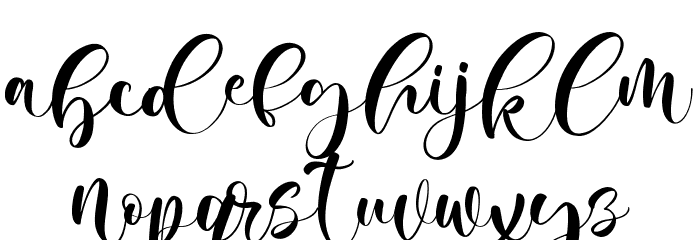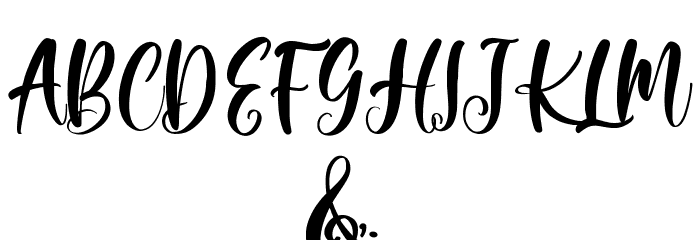
Camila Audrey Font
This font features a flowing, cursive style with elegant loops and swirls, giving it a sophisticated and artistic appearance. The uppercase letters are bold and expressive, while the lowercase letters maintain a consistent fluidity, enhancing the overall aesthetic. The strokes are thick, providing a strong visual impact, yet the delicate curves add a touch of grace and femininity. This font is ideal for creating eye-catching designs that require a personal and stylish touch. The special characters are seamlessly integrated, maintaining the font's cohesive look.
A bold, cursive font with elegant loops and artistic flair.
- Font: Camila Audrey
- Proposed Projects: Ideal for wedding invitations, branding, logos, and decorative headings.
- Use Case: Logos, Headlines, Invitations